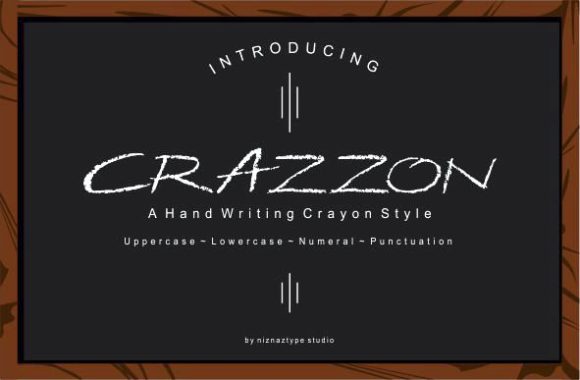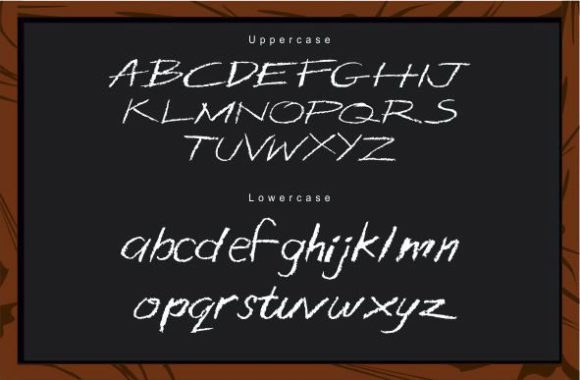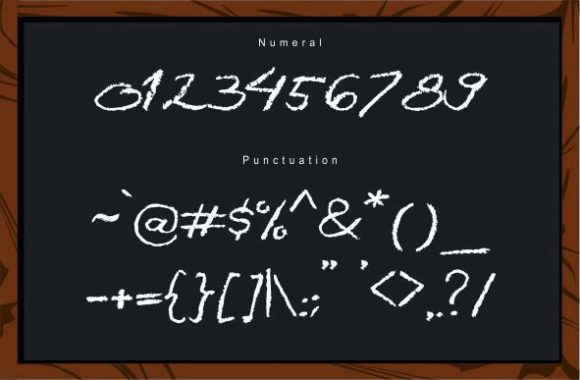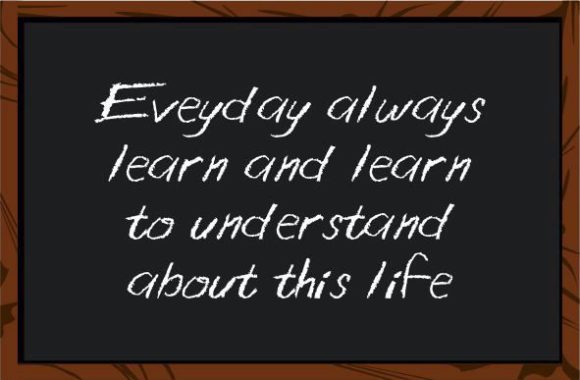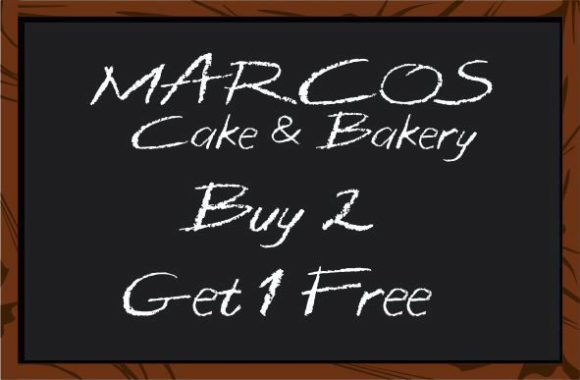
Crazzon Font
About Crazzon Font
Crazzon is a script font handwritten with a crayon pencil styles.
Suitable for comics, flyers, t-shirts, posters, kids designs and so on.